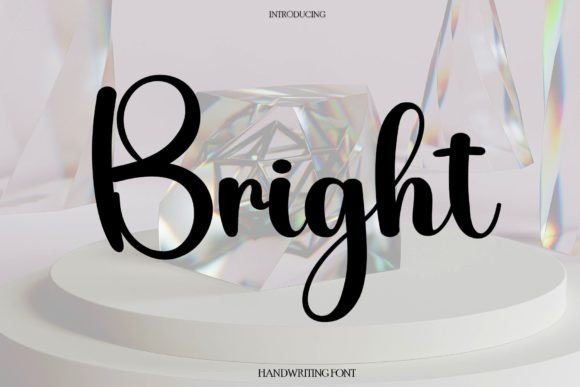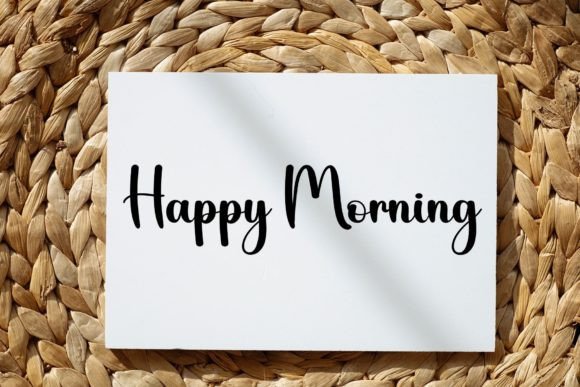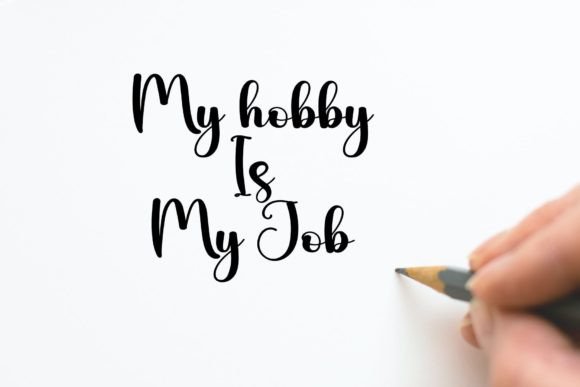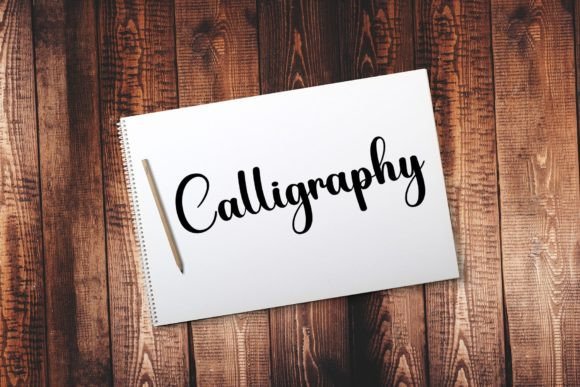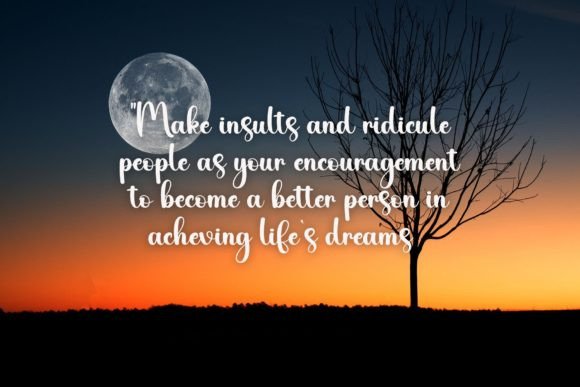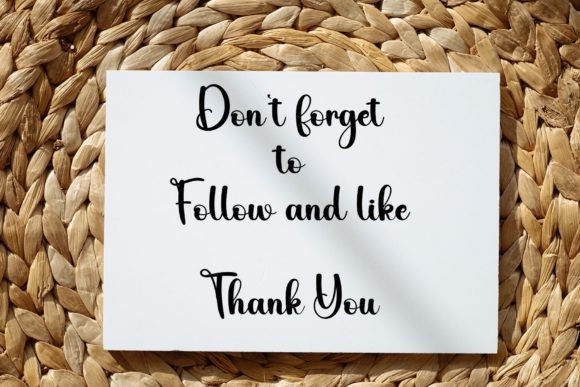
Bright Font
About Bright Font
“Bright: Where Elegance Meets Timeless Charm in Handwritten Beauty
Introducing Bright, a flowing handwritten font that embodies elegance and sophistication in every stroke. Its graceful touch and distinct style make it the perfect choice for your favorite projects, adding a touch of timeless charm to your creative endeavors. With its unique blend of elegance and fluidity, Bright captures the essence of handwritten beauty, making your designs truly spectacular.
The allure of Bright lies in its flowing, effortless curves that create a sense of natural beauty. Its handwritten elegance adds a personal touch to your projects, making them more inviting and captivating. Whether you’re working on invitations, branding materials, posters, social media graphics, or any other creative venture, Bright enhances your designs with its unique and distinctive style.
Imagine your invitations adorned with Bright’s elegant and playful letterforms, setting the tone for a memorable event. Picture your branding materials infused with its flowing charm, leaving a lasting impression on your audience. With Bright, your designs become more than just visuals; they become experiences, capturing the essence of your message with grace and finesse.
One of Bright’s most remarkable features is its ability to stand the test of time. Its timeless style ensures that your designs remain relevant and captivating, regardless of changing trends. Its distinct and elegant form becomes a signature element, making your projects memorable and unforgettable.
Moreover, Bright is not just a font; it’s an artistic statement. Its distinct style sparks creativity and invites you to explore new design possibilities. As you work with Bright, you’ll find that it effortlessly elevates your ideas, turning them into visually stunning narratives that leave a lasting impression on anyone who sees them.
In a world where visual aesthetics play a crucial role, Bright helps you make a statement. It speaks the language of elegance and creativity, resonating with those who appreciate the beauty of handwritten artistry. Whether you’re a professional designer or an enthusiast exploring the realms of creativity, Bright becomes your cherished companion, guiding you toward design excellence.
So, why settle for ordinary when you can embrace the extraordinary with Bright? Let this flowing handwritten font be the muse for your creative expressions, and watch as your projects come to life with elegance and timeless charm. Let your creativity flow, and let Bright be the brushstroke that paints your ideas into visually spectacular masterpieces, leaving a lasting impression on the world.”